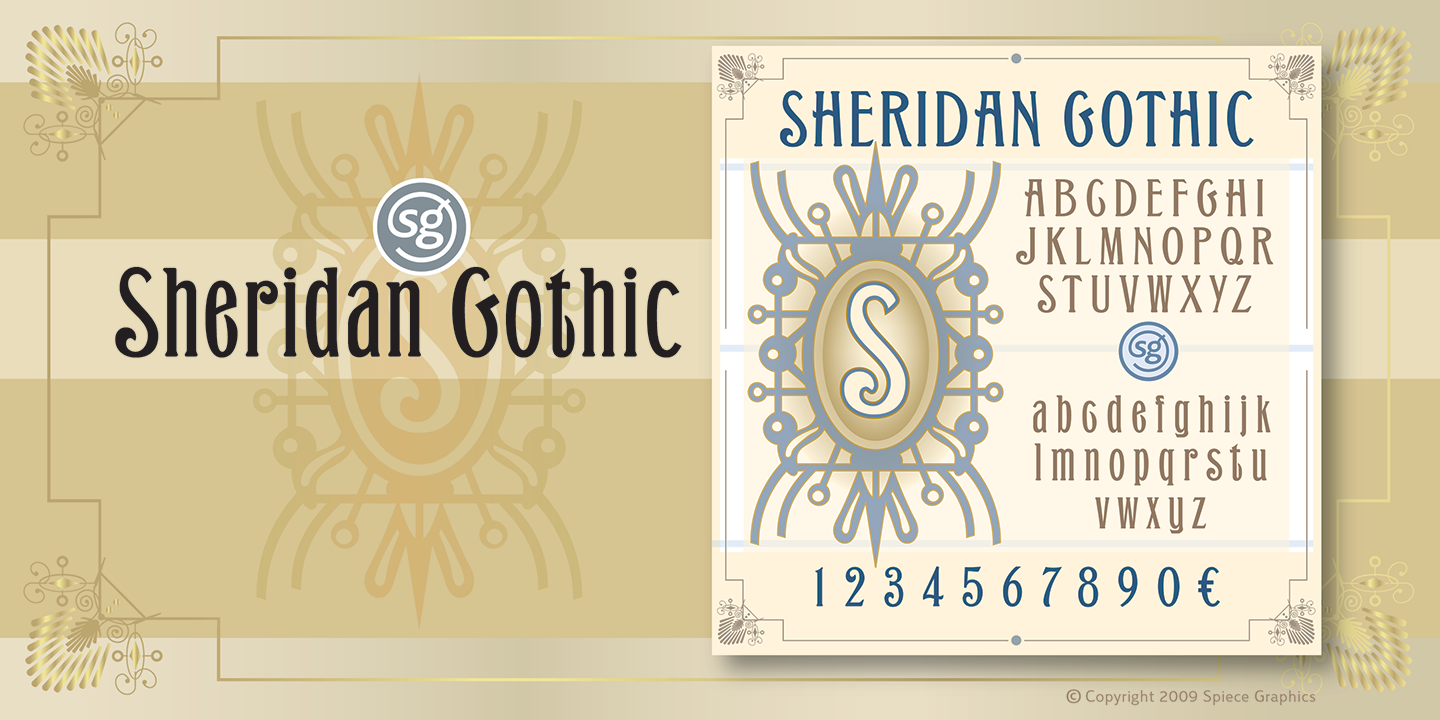
Sheridan Gothic SG Font is perfect for vintage newspaper headlines, classic editorial layouts, historical publication reproductions, retro advertising campaigns, period-authentic branding, traditional print materials, heritage organization communications, and classic American typography projects. This distinguished typeface excels in applications requiring authentic turn-of-the-century character and traditional gothic newspaper aesthetic that evokes classic American publishing heritage.
What makes Sheridan Gothic SG Font exciting is its authentic recreation of classic American gothic newspaper typography that captures the authoritative presence of early 20th-century journalism and traditional print media. The font features robust letterforms with strong vertical emphasis and condensed proportions that perfectly evoke the commanding headlines and editorial gravitas of historical American newspapers and classic publishing traditions.
The Sheridan Gothic SG Font family includes multiple weights and condensed variations inspired by traditional newspaper typography, offering designers comprehensive tools for creating period-authentic compositions. The family provides consistent gothic aesthetic with varying density levels for authentic historical communications and traditional publishing projects requiring genuine early American typography character and newspaper heritage appeal.
Sheridan Gothic SG Font Free Download delivers exceptional value for designers working on historical, editorial, or vintage-themed projects requiring authentic American gothic character. Whether you're creating heritage publications, historical society materials, vintage advertising campaigns, or period entertainment promotions, this font provides the traditional newspaper strength needed to establish credible historical atmosphere and classic American publishing authenticity.
The powerfully crafted letterforms of Sheridan Gothic SG Font maintain excellent readability while maximizing historical authenticity and gothic newspaper character, making it suitable for both headline displays and editorial text applications. This versatile typeface combines American publishing heritage with modern technical standards for outstanding performance in contemporary design projects requiring genuine historical character and traditional newspaper presence.